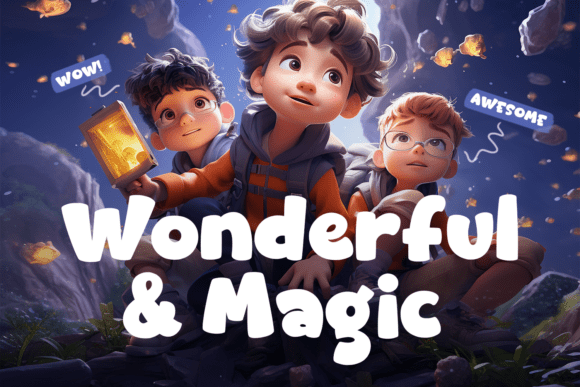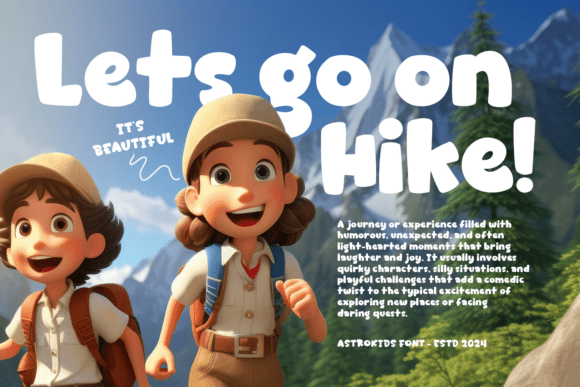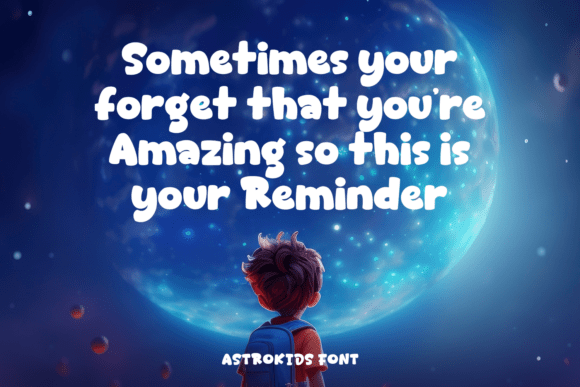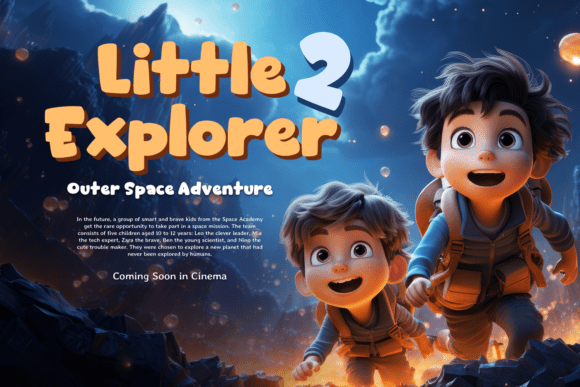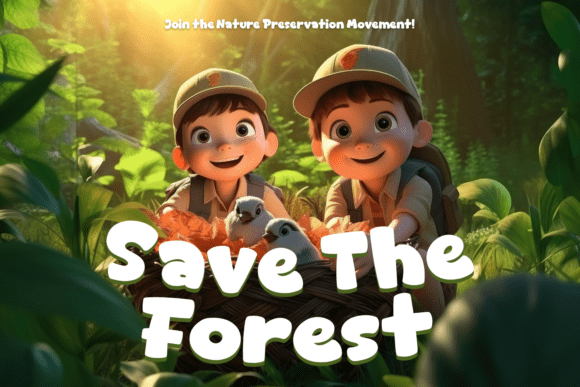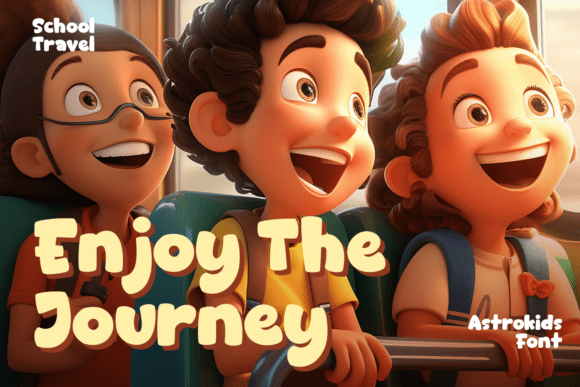
Discover the Magic of Astrokids Font: A Fun and Playful Choice for Creative Projects
I’ll never forget the time I was working on a children’s book design project, and I was struggling to find the perfect font to bring the story to life. The client wanted something fun, playful, and engaging, but not too childish or overwhelming. After hours of searching through font libraries and testing out different options, I stumbled upon Astrokids Font. It was love at first sight! ✨ The bold, chunky letterforms and rounded characters instantly caught my attention, and I knew I had found the perfect fit for the project.
A Personal Review of Astrokids Font
- ✨ Unique and playful design that’s perfect for children’s themes and creative projects
- ✅ Thick, rounded characters that are easy to read and engaging for young audiences
- 💡 Versatile and adaptable for various applications, from educational materials to event posters and social media content
- 🎉 Adds a sense of wonder and energy to any design project
While Astrokids Font is an amazing choice for many projects, there are a few things to keep in mind:
- 🤔 The font’s bold and chunky design may not be suitable for very small text sizes or body copy
- ⚠️ Some of the OpenType features and glyphs may not work seamlessly across all design platforms or software
A Practical Guide to Using Astrokids Font
One of the best things about Astrokids Font is its OpenType features and glyphs. These allow you to customize your design and add unique touches. Some of the features you can explore include:
- Stylistic alternates: Switch between different font styles and variations
- Glyphs: Add special characters and symbols to your design
- Ligatures: Combine letters and characters for a more creative look
The Story Behind Astrokids Font
According to the designer, Astrokids Font was inspired by a love of children’s literature and a desire to create a font that would bring joy and wonder to young readers. The designer spent countless hours researching and experimenting with different font designs, eventually settling on a bold and chunky style that’s both fun and easy to read.
Q: What is Astrokids Font best suited for?
A: Astrokids Font is best suited for creative projects that require a fun and playful touch, such as children’s book designs, educational materials, event posters, and social media content.
Q: Is Astrokids Font available in different languages?
A: Astrokids Font may not be available in all languages, but it does support a range of characters and glyphs that can be used to create multilingual designs.